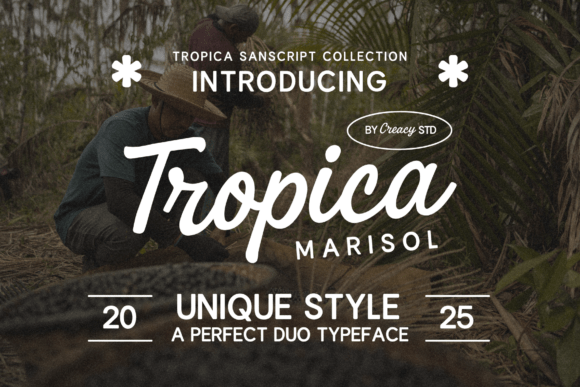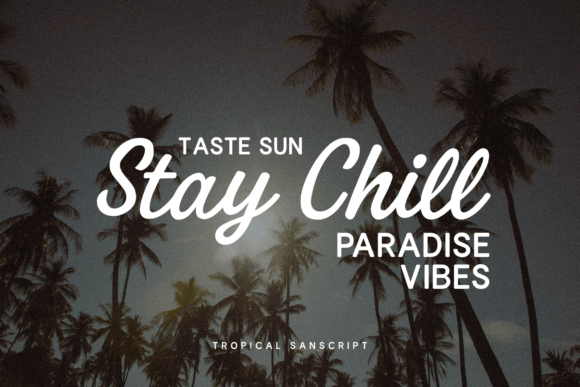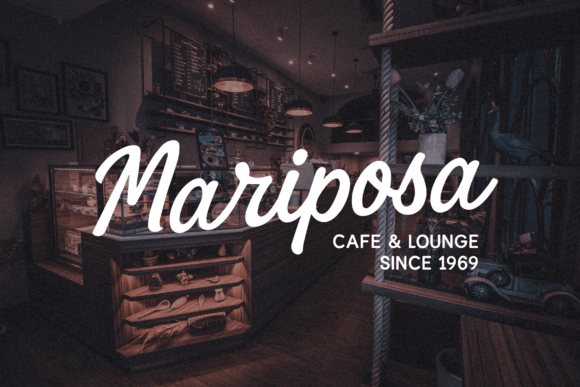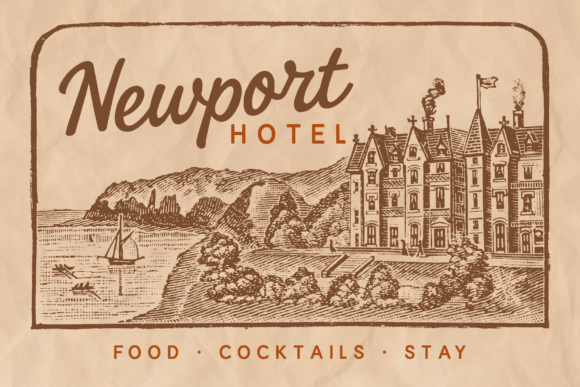
Tropica Marisol Duo Font
Discover the delightful aura of Tropica Marisol, a dynamic font duo marrying the charm of a bygone era with the crispness of modern designs.
Born from the allure of tropical aesthetics and vintage signage, this versatile typeface is ideally suited to render a unique twist to your branding, packaging, editorial content, signage, and social media graphics.
Experience Tropica Marisol’s distinctive call of the tropics, bundled in a potent duo of retro-inspired script and contemporary sans. Perfectly balanced for an unforgettable fusion, the script and sans are crafted to complement each other seamlessly, making it a favorite among logos, cafes, restaurants, hotels, and lifestyle endeavors.
A full feature set, inclusive of uppercase, lowercase, numbers, punctuation, and multilingual support, ensures robust versatility that adapts to a diverse palette of creative requirements. The Tropica Marisol package includes both Script (OTF/TTF) and Sans (OTF/TTF) variants.
Ideal for branding, logo design, dining establishments’ identities, retro signage and posters, product packaging, labels, and a myriad of social media and lifestyle content, Tropica Marisol opens new vistas of creative expression.